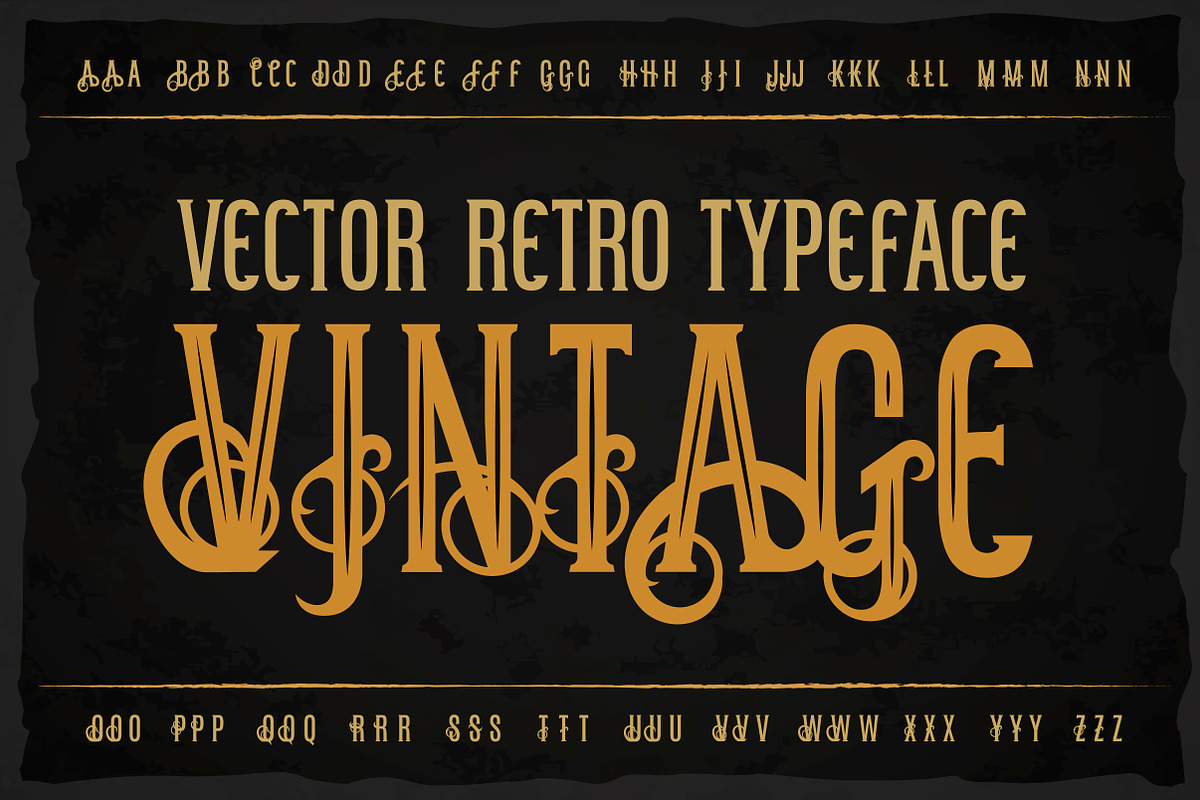
Vintage OTF label font.
Vintage OTF vintage label font.
- Vintage Regular
- Vintage Style
Vintage OTF label font. by Fractal fonts & graphics fits naturally into Branding, posters, packaging, typography.